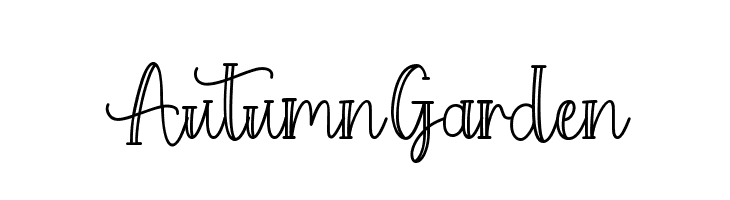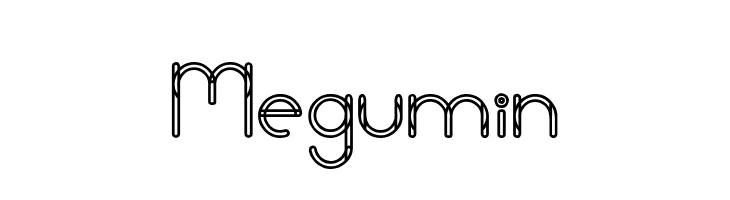
A playful, handwritten font with smooth, rounded edges and a casual style.
A bold, brush-style script font with high contrast and dynamic strokes.
A pixelated, retro-style font inspired by early digital displays.
A bold, vintage serif font with tall, narrow letters and elegant serifs.
A bold, playful handwritten font with thick strokes and a casual, friendly appearance.
A modern, rounded font with a clean and approachable design.
A flowing, cursive script font with elegant, smooth curves.
A playful, handwritten font with a casual and energetic style.
A classic blackletter font with intricate, high-contrast strokes and ornate details.
A playful, Halloween-themed font with a carved pumpkin style.